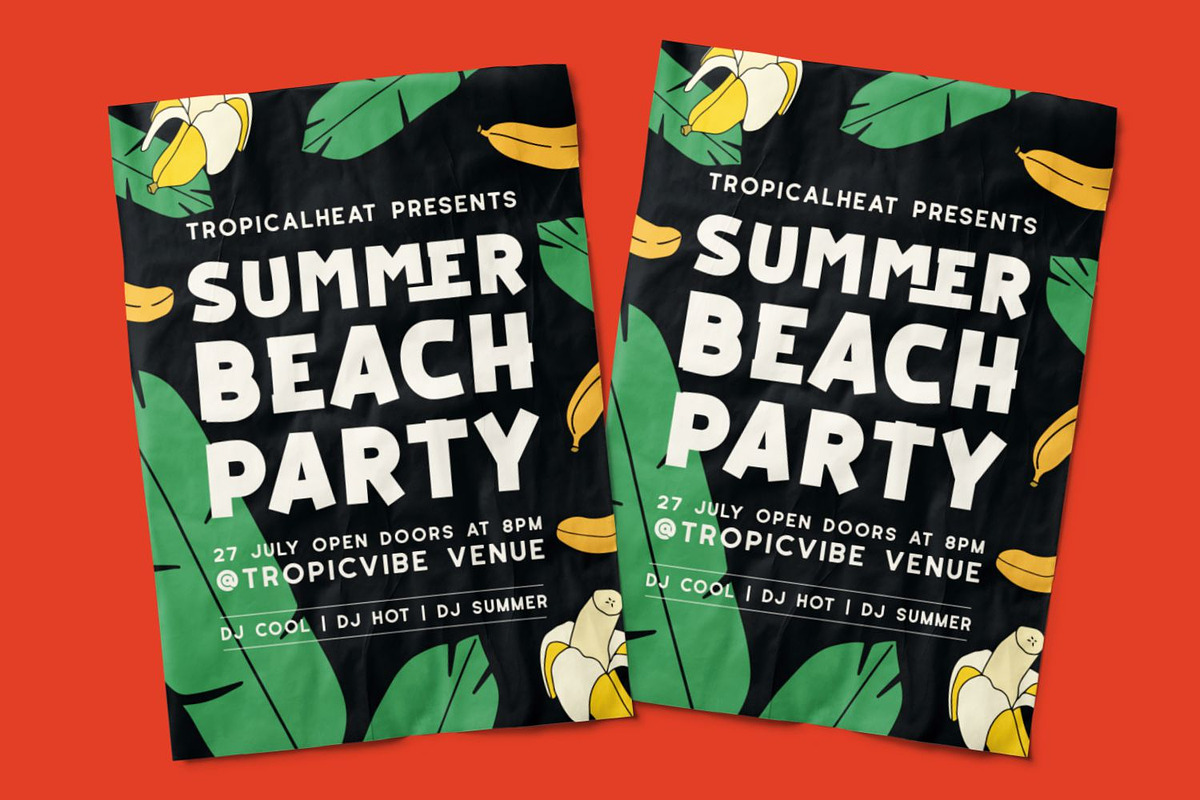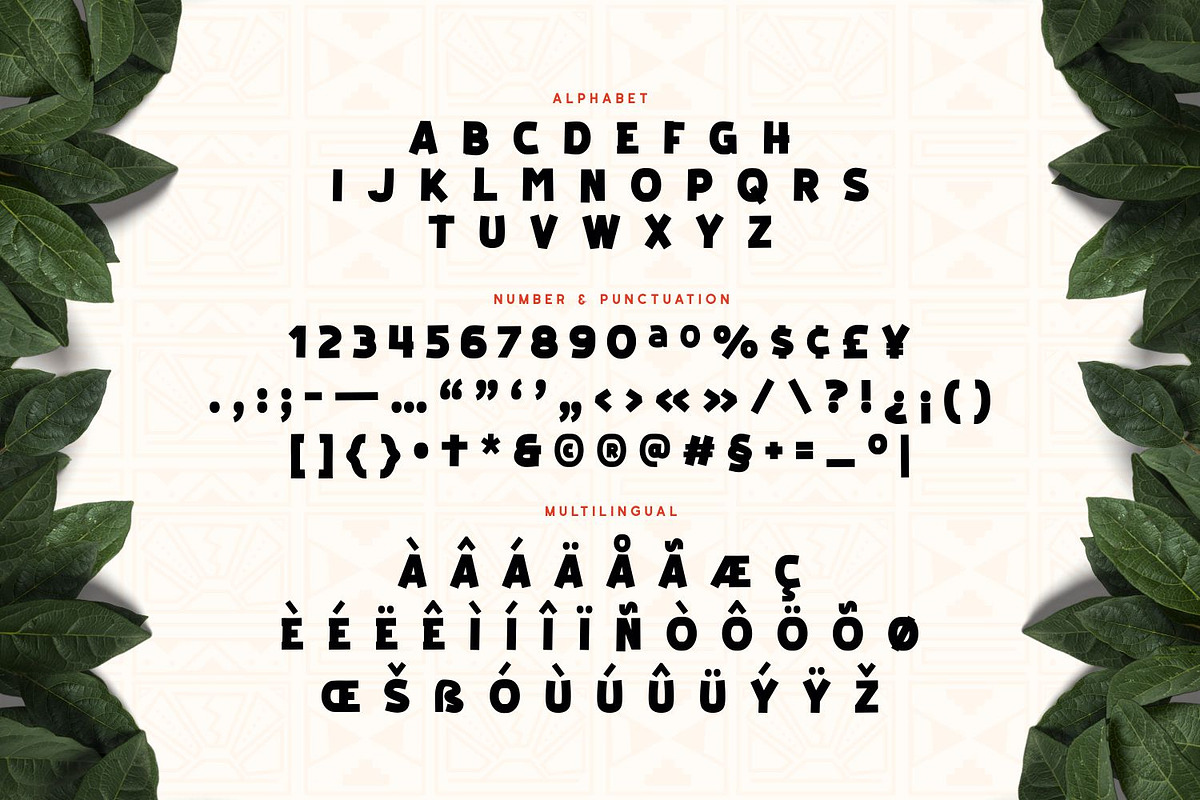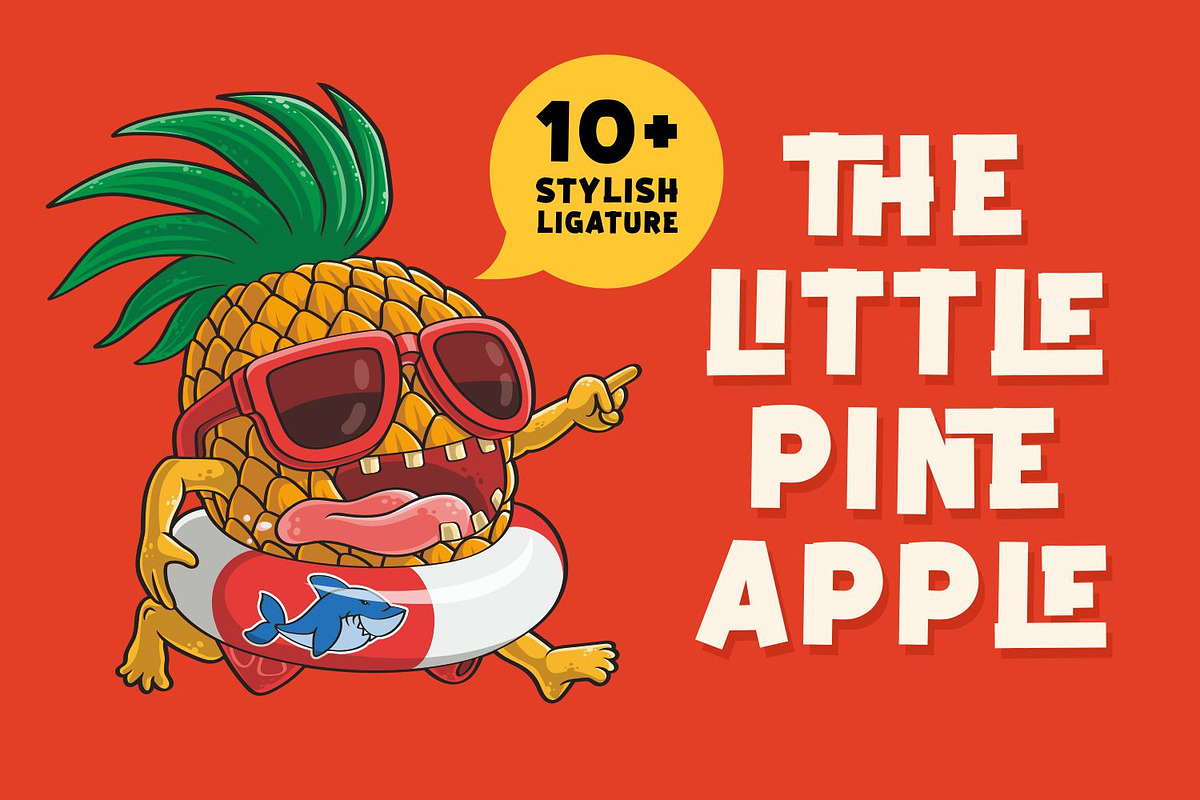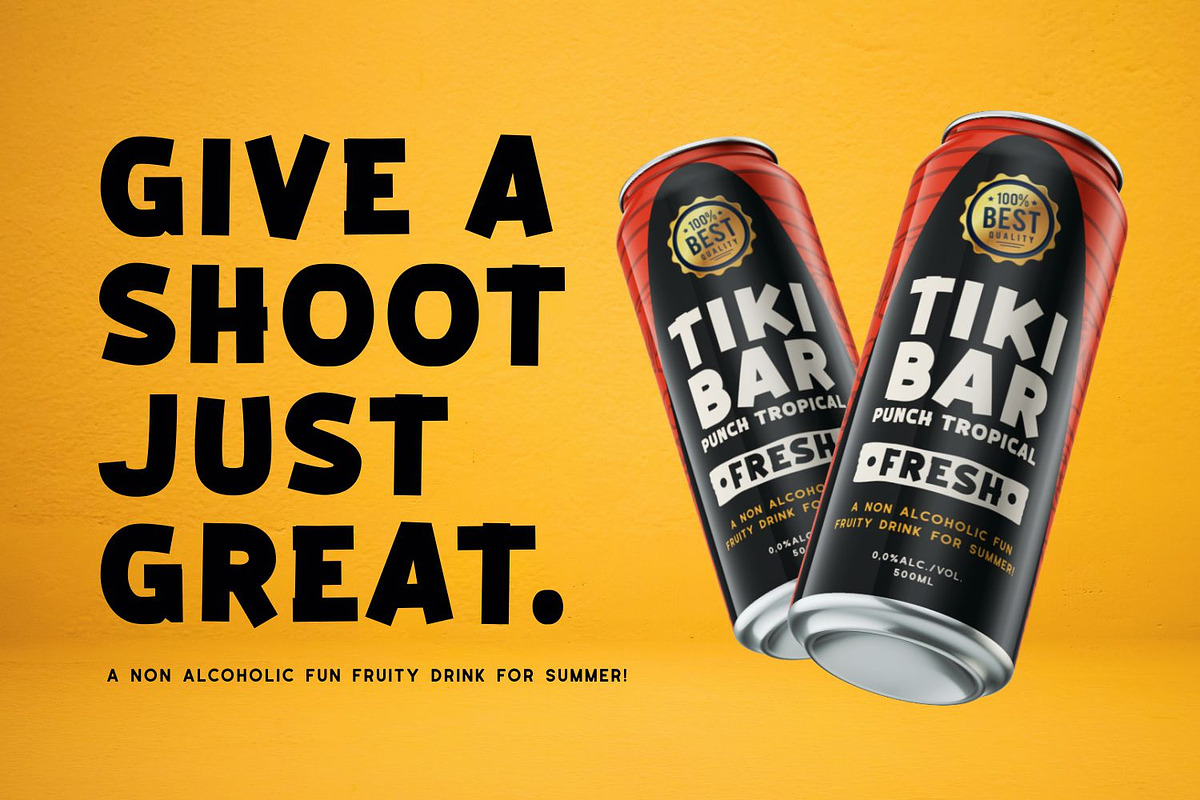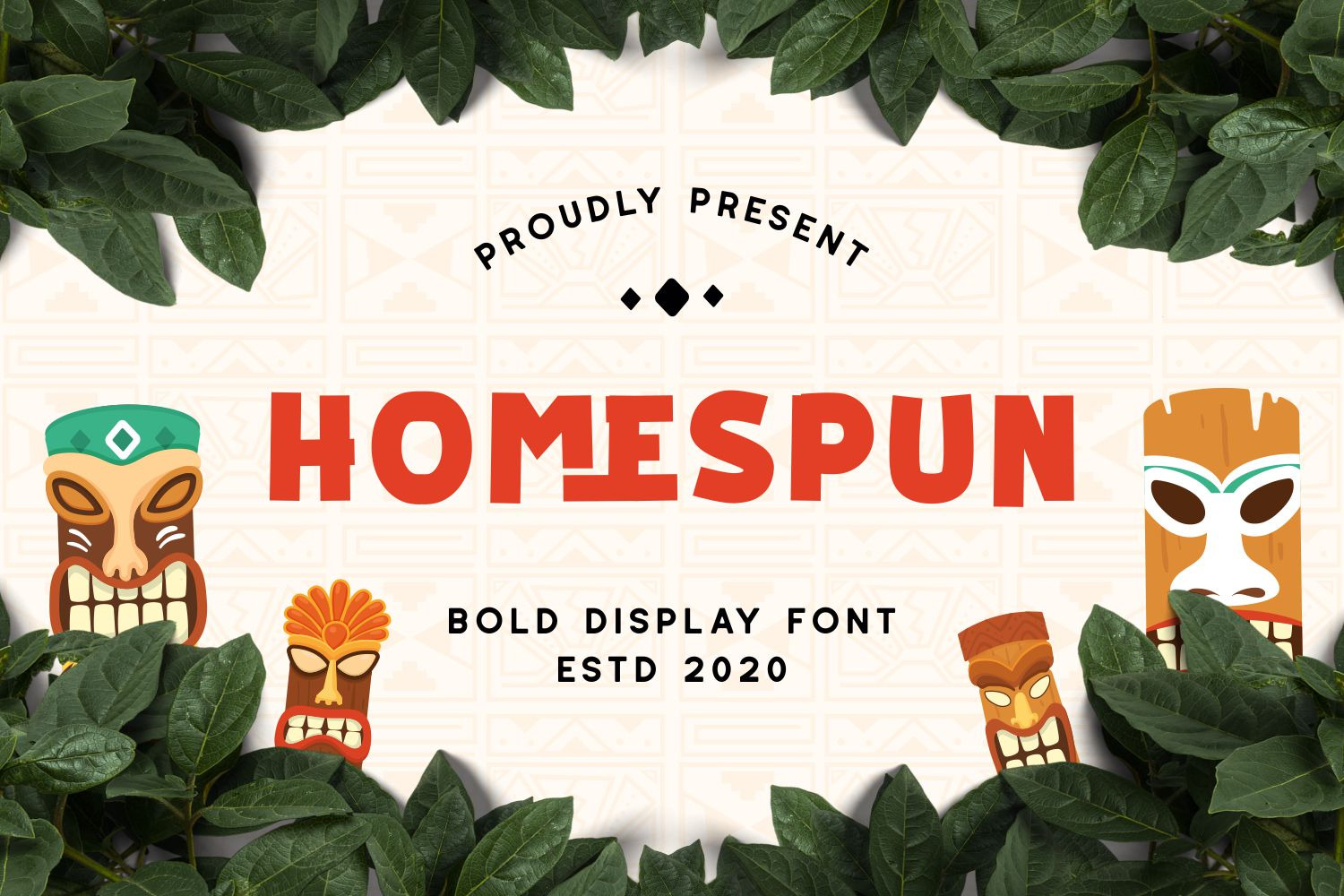
Homespun - Tropical Hawaii Font
Introducing Homespun, a bold and playful display font that instantly transports your designs to a sunny, tropical paradise. Inspired by tiki culture, island adventures, and rustic hand carved signs.
Perfect for branding, posters, packaging, and any project that needs a splash of fun and adventure.
Ton of Glyphs
Uppercase and Lowecase Characters.
Numerals and Punctuations.
Alternates and Ligatures.
Multilingual Support.